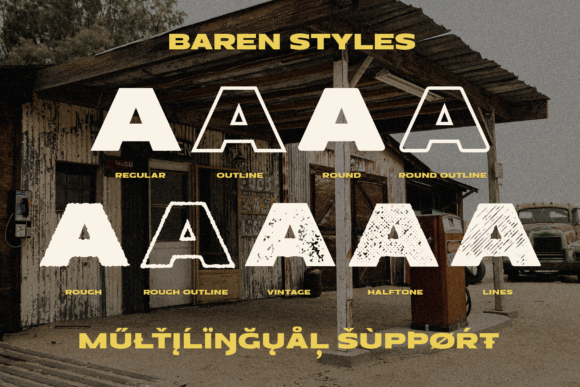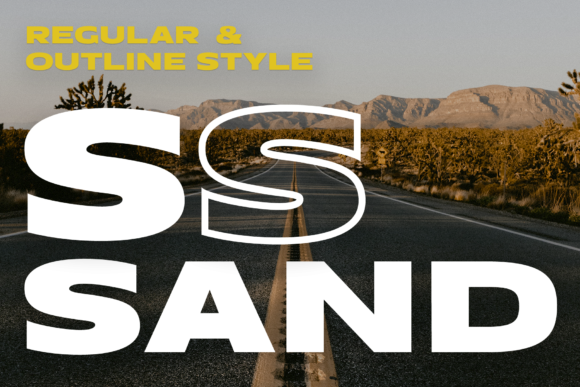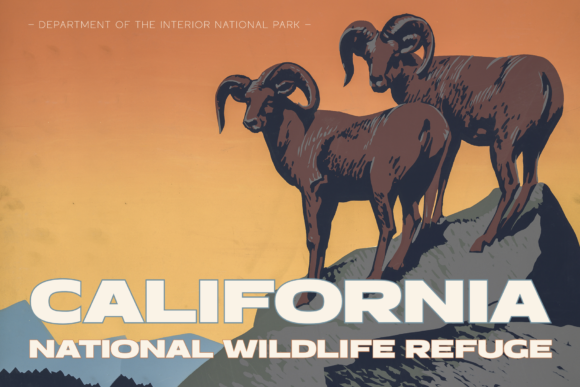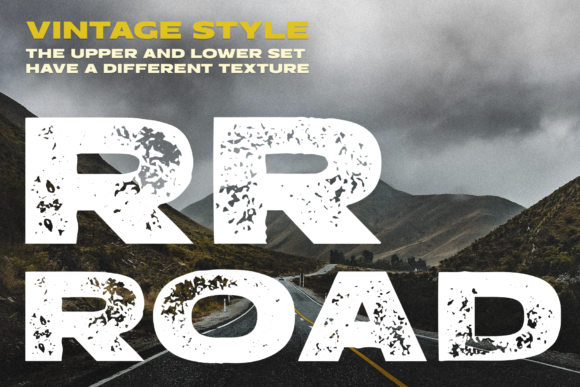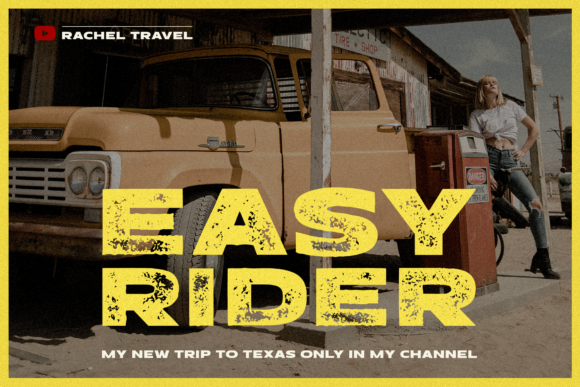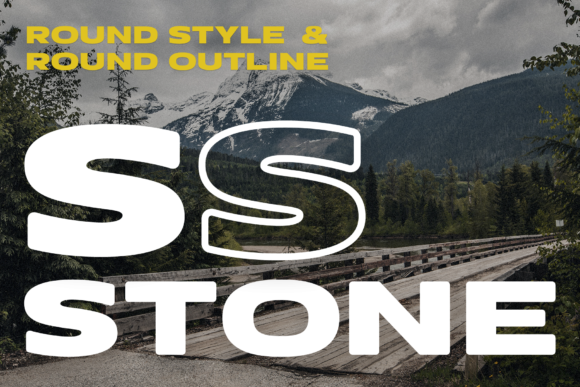
Introducing Baren Font: The Ultimate Display Font for Bold Creations
Are you tired of using the same old fonts in your designs? Look no further than Baren Font, a cool, bold, and rough textured display font that’s sure to elevate your creations to the next level. With its unique texture and rugged charm, Baren Font is the perfect addition to any designer’s font library.
The Characteristics of Baren Font
Baren Font is a display font like no other. Its bold and rough texture gives it a distinctive look that’s both eye-catching and memorable. The font’s texture is reminiscent of handmade or vintage designs, adding a touch of warmth and character to any project. Whether you’re working on a logo, poster, or social media graphic, Baren Font is sure to make your design stand out.
Why Baren Font is a Must-Have for Designers
So, what makes Baren Font an essential font for designers? Here are just a few reasons:
- Versatility: Baren Font can be used for a wide range of projects, from bold headlines to eye-catching logos. Its versatility makes it a great addition to any font library.
- Uniqueness: With its rough texture and bold design, Baren Font is a one-of-a-kind font that’s sure to set your designs apart from the crowd.
- Easy to Read: Despite its bold and textured design, Baren Font is surprisingly easy to read, making it perfect for use in headlines, titles, and other display text.
How to Use Baren Font in Your Designs
Baren Font is incredibly easy to use, and can be incorporated into your designs in a variety of ways. Here are a few ideas to get you started:
- Headlines and Titles: Use Baren Font to create bold and eye-catching headlines and titles that are sure to grab attention.
- Logos and Branding: Baren Font’s unique texture and bold design make it perfect for use in logos and branding materials.
- Posters and Flyers: Add some texture and interest to your posters and flyers with Baren Font.
Tips and Tricks for Getting the Most Out of Baren Font
Here are a few tips and tricks for getting the most out of Baren Font:
- Experiment with Colors: Baren Font looks great in a variety of colors, so don’t be afraid to experiment and find the perfect hue for your design.
- Play with Texture: Baren Font’s texture is one of its standout features, so try combining it with other textures and design elements to create a unique look.
- Use it Sparingly: While Baren Font is a bold and eye-catching font, it can be overwhelming if overused. Use it sparingly to create maximum impact.
In conclusion, Baren Font is a must-have font for any designer looking to add some edge and personality to their creations. With its bold and rough texture, versatility, and ease of use, Baren Font is the perfect addition to any font library. Whether you’re working on a logo, poster, or social media graphic, Baren Font is sure to elevate your design and make it stand out from the crowd.